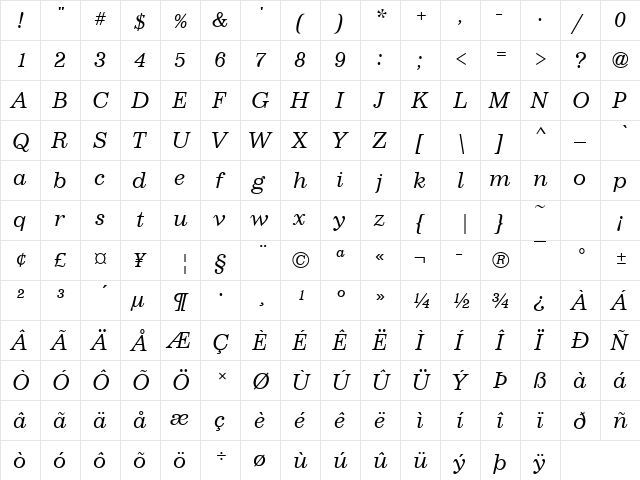
Mariam Becker Light Italic
Design Context for Mariam Becker Light Typeface
Mariam Becker Light offers clean, dependable letterforms without strong stylistic allegiance, making it a practical choice for designers who need flexibility. The dynamic lean of this cut emphasises speed and emphasis in any layout. Its slender proportions lend an understated elegance to any composition.
Pro Tip: Use Mariam Becker Light for emphasis, pull quotes, and subheadings where its slanted energy can add rhythm to the layout.